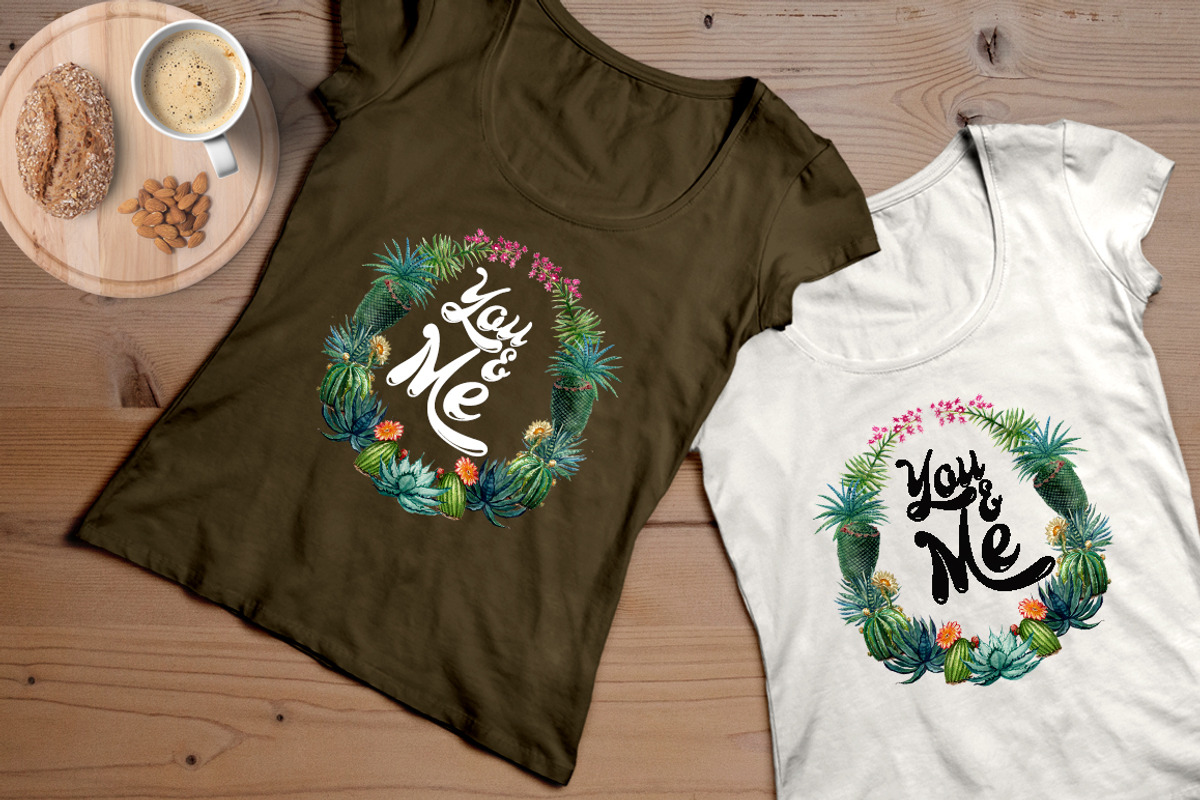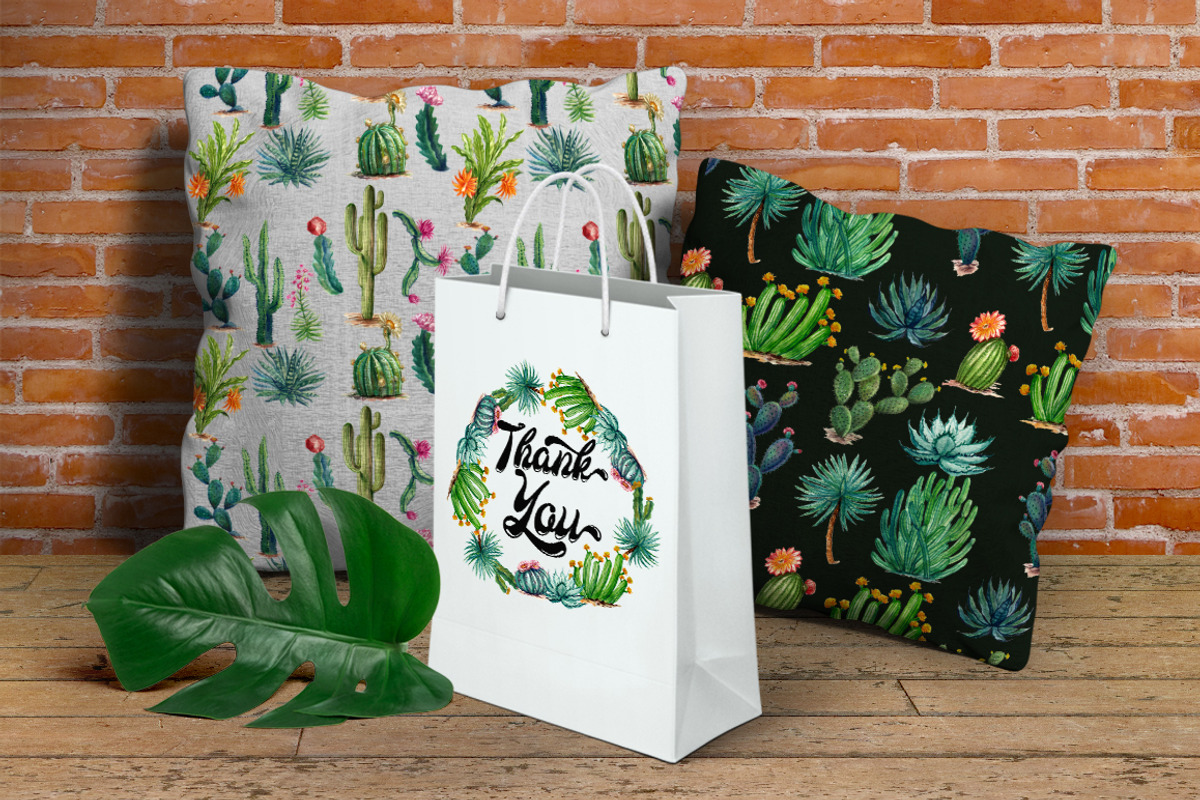
Larista Script
Larista Script Pasta Font inspiration from Pasta Character. Larista Is Handmade Font in Script Join. Larista Script Pasta Font Come with two character in Mono/reguler and Line. Larista Include Swash and Icon in Font to make it easier for your work in design.
Larista Come with Uppercase, Lowercase, Open type Ligature, Numeral, Punctuation, Swashes, Alternate Character with Uppercase and Lowercase.
Opentype Features: Swash Icon Standard Ligatures Contextual Alternates Stylistic Alternates All Alternates